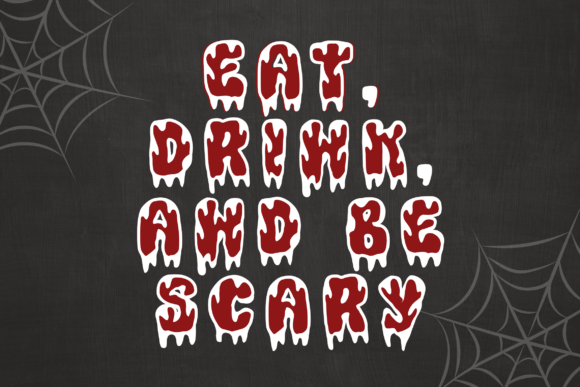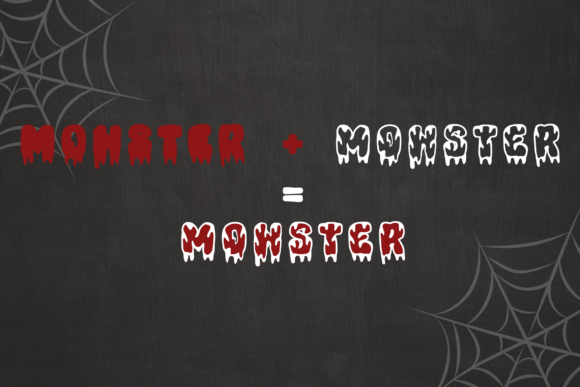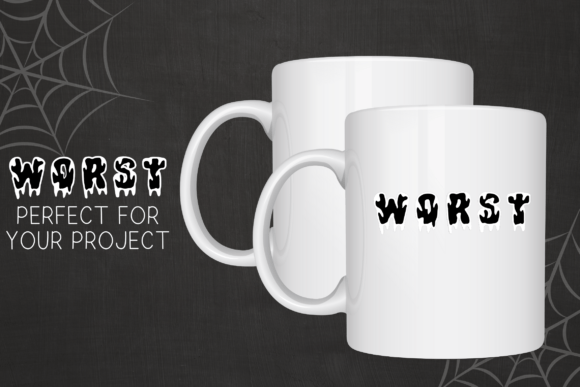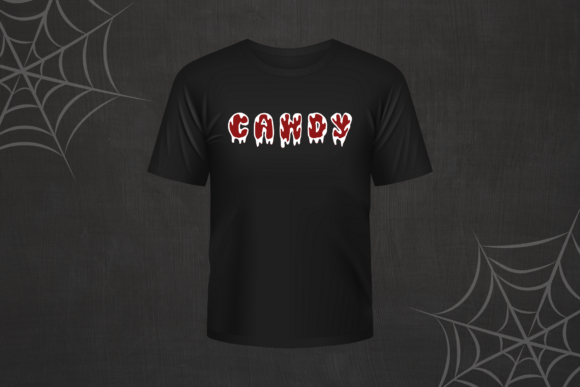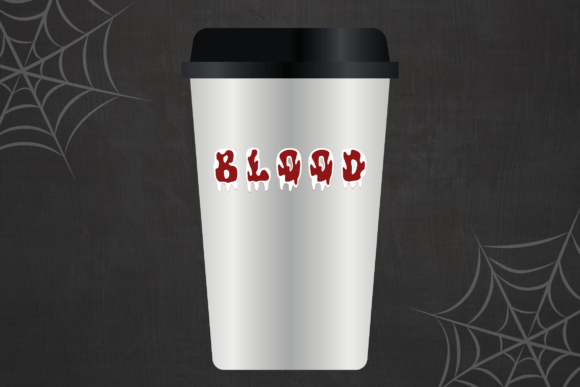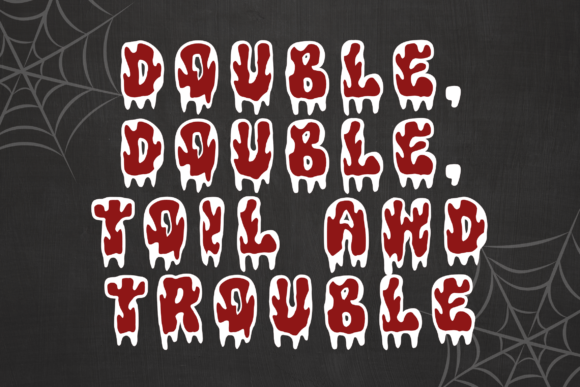
Introduction to Retro Monster Font
Unleash the beast of creativity with the Retro Monster Font.
Bold, quirky, and refreshingly fun, this display type with a vintage touch channels the playful heart of classic cartoons and whimsical monster artistry Itโs an ideal choice for Halloween-themed poster designs, comic book titles, or childrenโs party invites โ any project that necessitates a dash of wild energy and bygone era charm.
Key Features of Retro Monster Font
Why Choose Retro Monster Font?
Retro Monster Font offers exceptional quality and versatility, making it a valuable addition to your design toolkit. Whether you’re creating for personal projects or commercial use, Retro Monster Font delivers professional results.